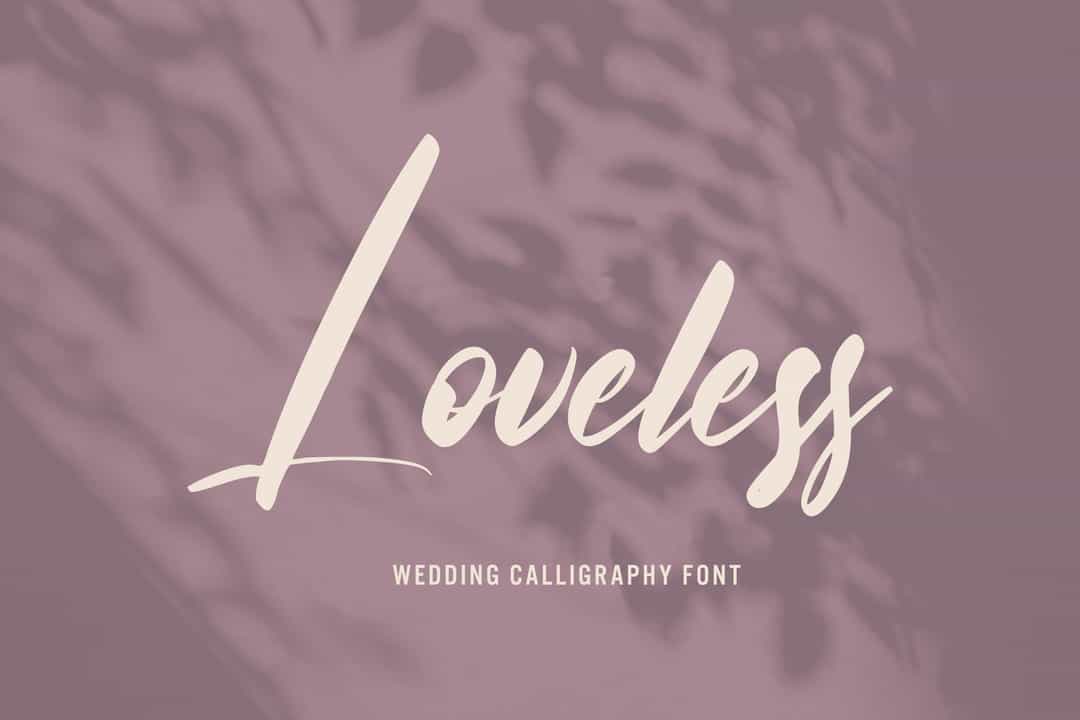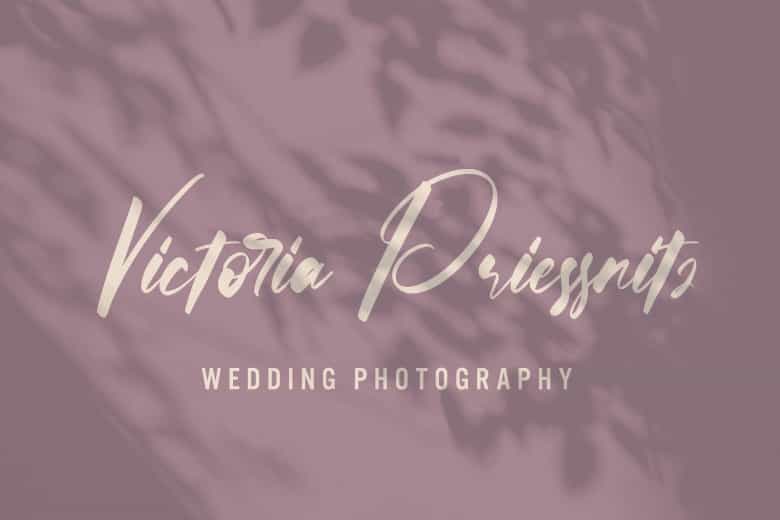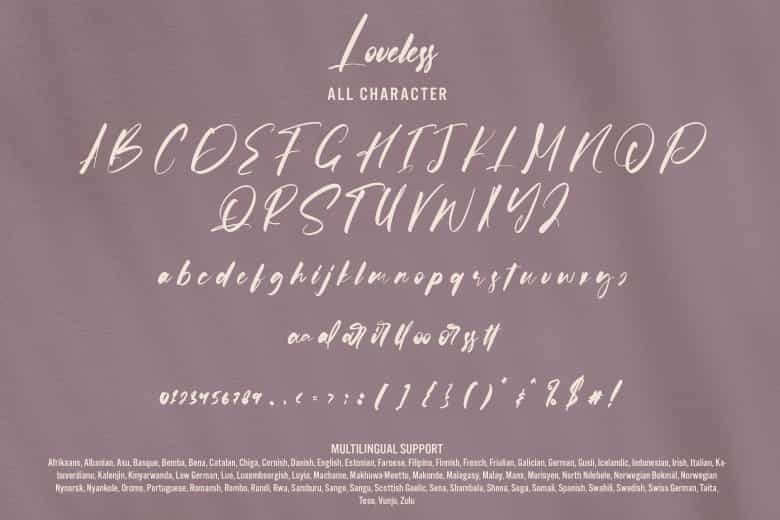
Loveless Font is an exquisite handwritten typeface with an unforgettable look and impact, which can add luxurious shimmer to any design you create! Plus, its PUA encoded format makes accessing its beautiful characters and ligatures simple!